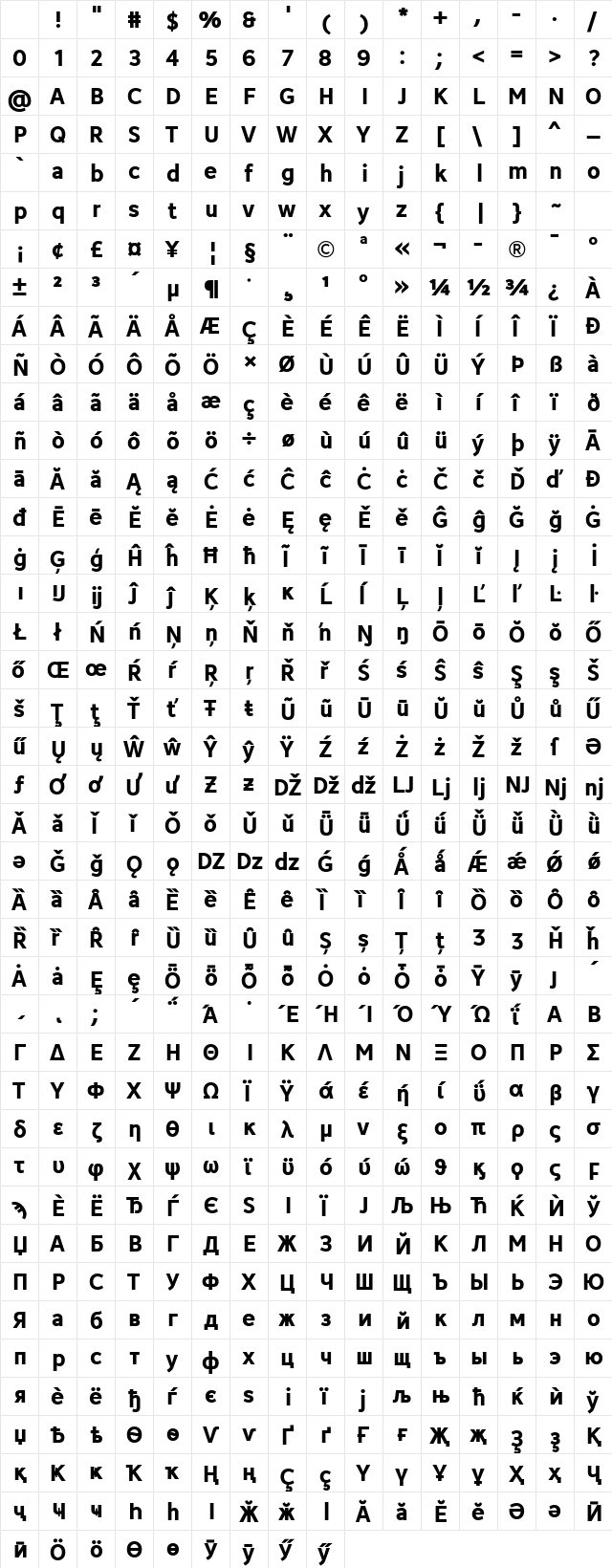
Complete Avancement 2020 Bold glyph index. Displaying only characters natively supported by Avancement 2020 Bold font.
Avancement 2020 is a composed and adaptable typeface that performs quietly and consistently across a wide range of design contexts. Its bold stroke weight gives it real presence on the page.